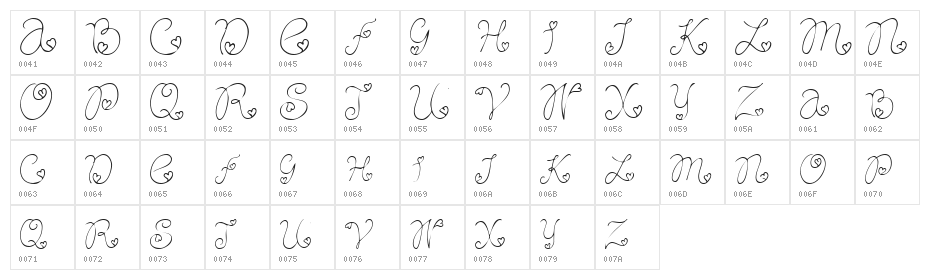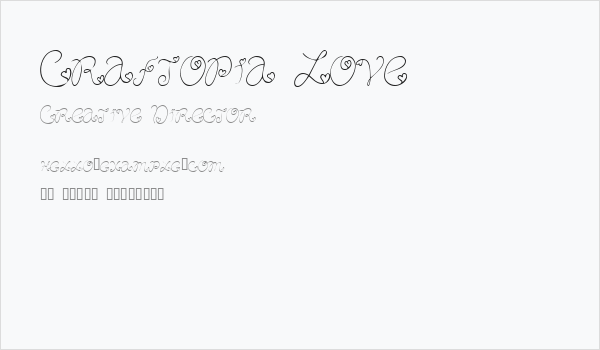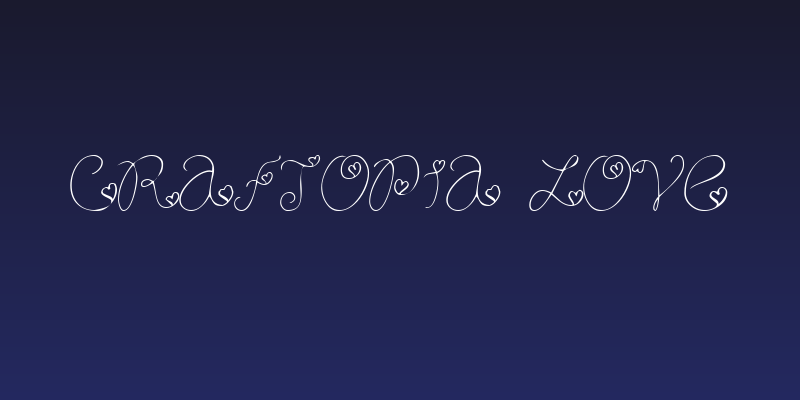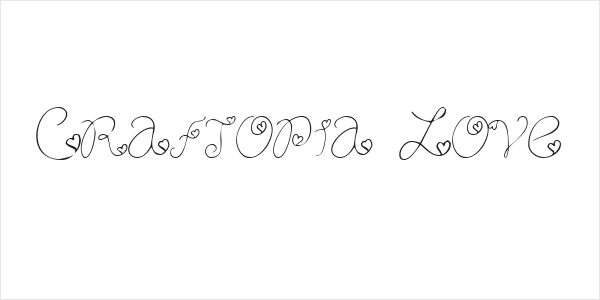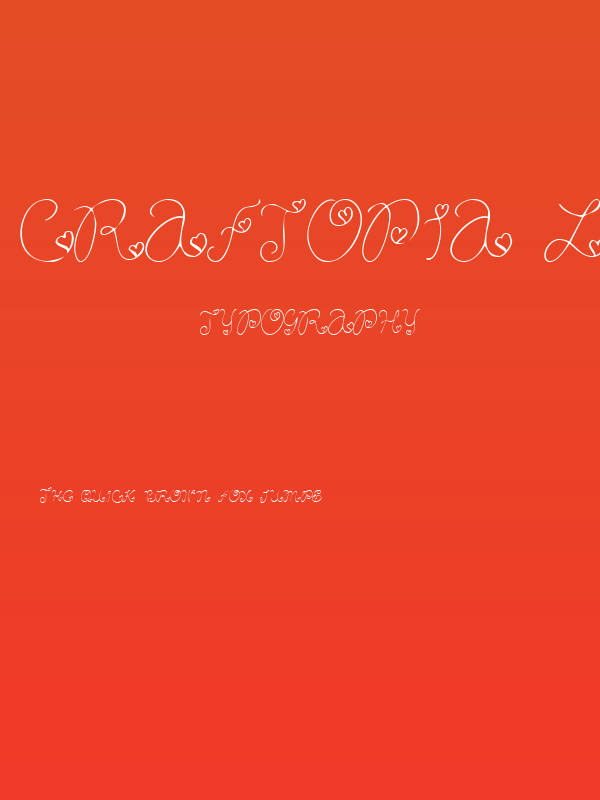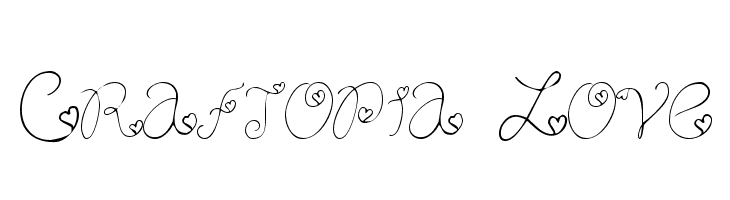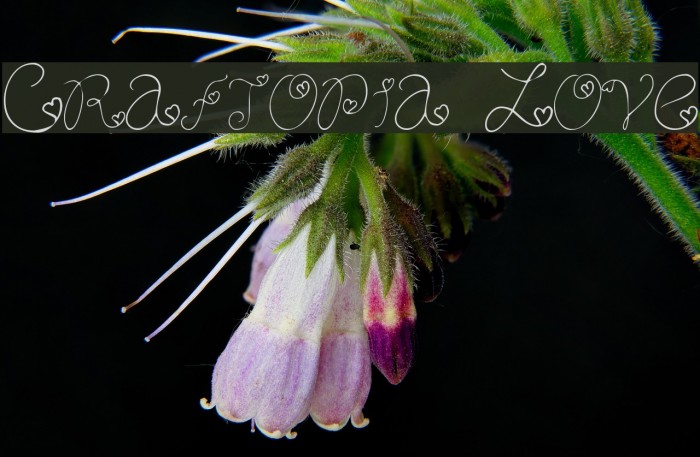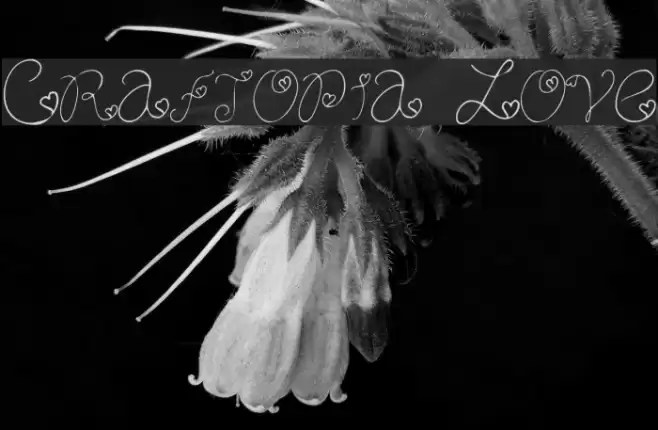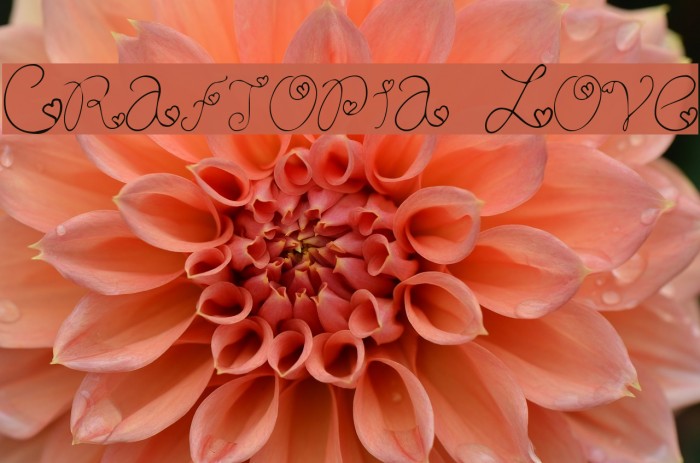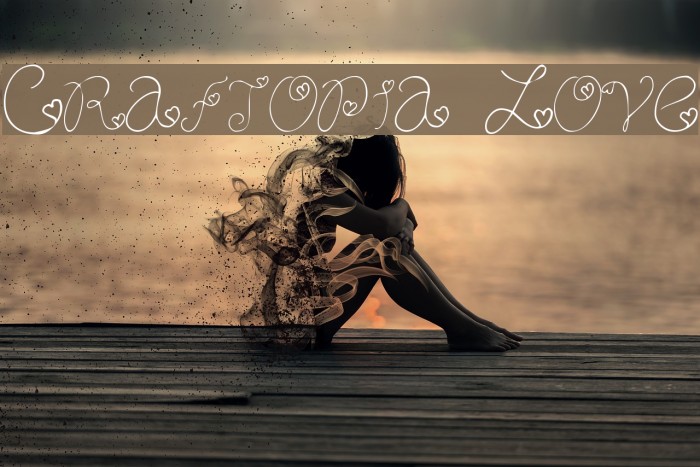
Craftopia Love Font
| 全体的なスタイル | Romantic, Artistic |
| 用途 | Decorative text, Artistic projects |
| おすすめプロジェクト | Ideal for wedding invitations, romantic greeting cards, personalized gifts, and decorative art projects. |